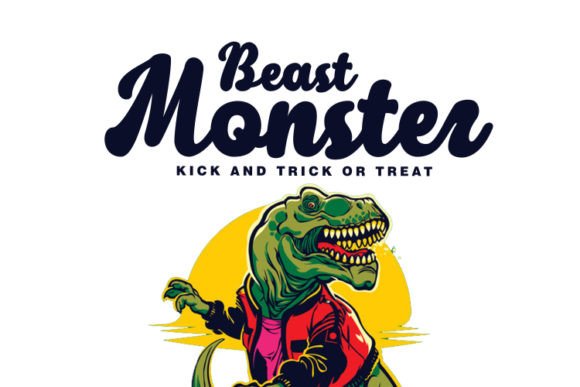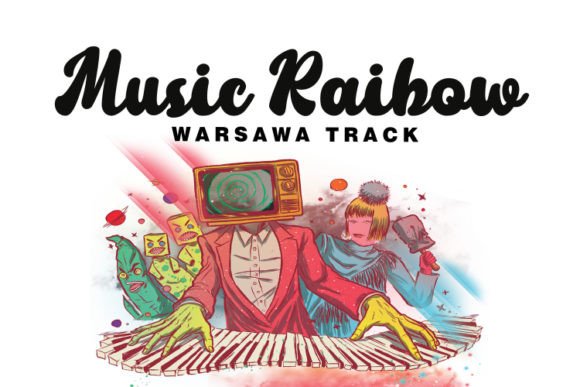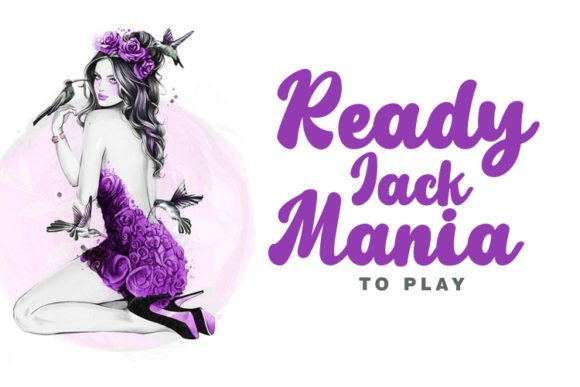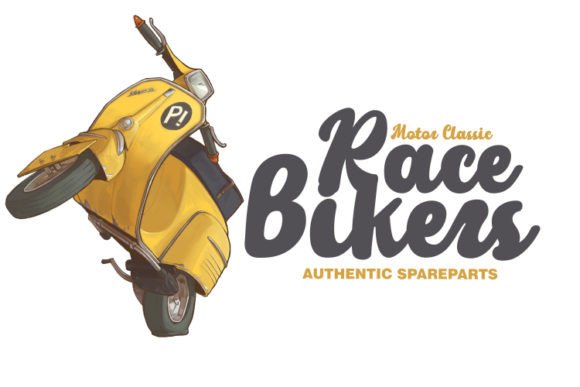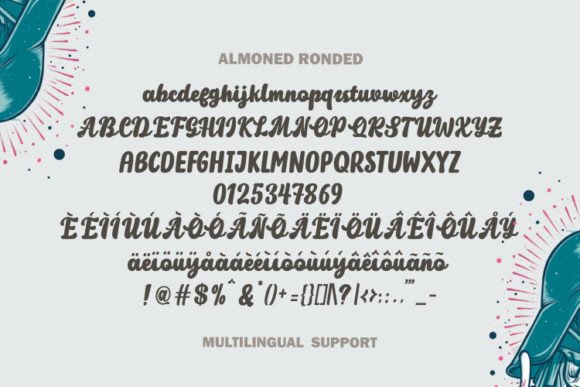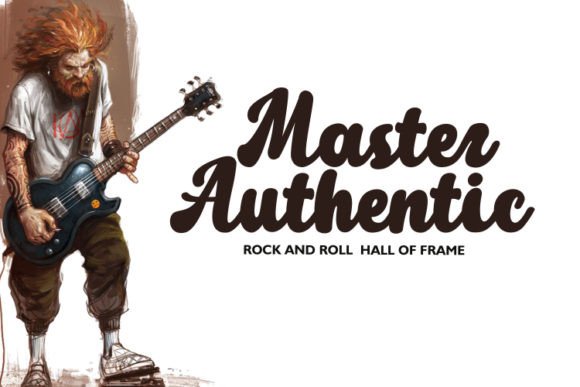
Introduction to Almonet Ronded Font
Almonet Ronded is a thick-lettered handwritten font masterfully crafted to become a true favorite.
Contemporary and fresh, it is perfect for any design you wish to create Add it to your creative projects and make them outstanding.
Key Features of Almonet Ronded Font